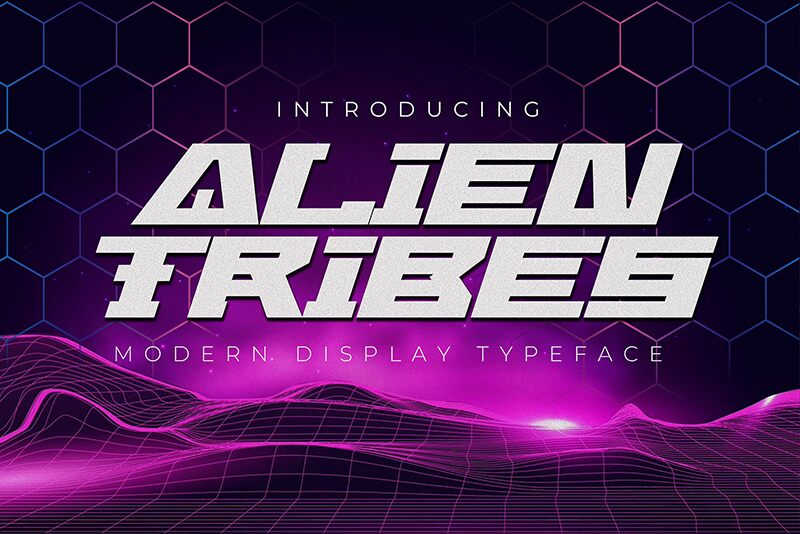
Alien Tribes
Alien Tribes, designed by Gassstype, is a bold display font with a distinctly futuristic style that immediately transports you to the cosmos of creativity. Its extra-expanded width and assertive weight command attention, making each character pop with an otherworldly presence. The sharp angles and clean lines convey a sense of advanced technology and extraterrestrial origin, perfect for projects that require a touch of sci-fi elegance.
The aesthetic appeal of Alien Tribes lies in its striking contrast between minimalist design and powerful visual impact. This font’s expansive letterforms are ideal for headlines, logos, and any application where you want your message to stand out with confidence. Whether you're designing for a space-themed video game, crafting the title sequence for a science fiction film, or creating promotional materials for a tech event, Alien Tribes is poised to give your project an avant-garde edge that is both modern and timeless.